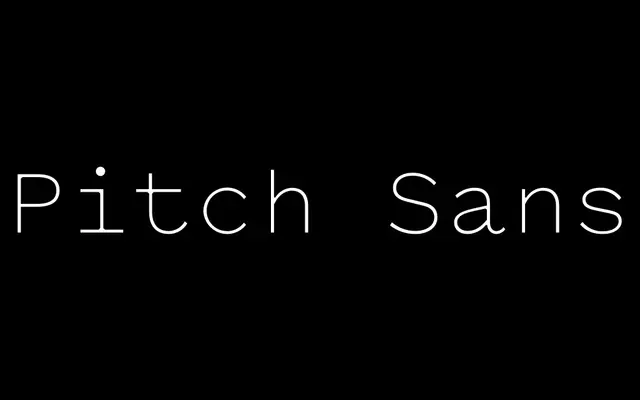
Pitch Sans
Klim Type Foundry · Kris Sowersby · 2018
A sans monospace that evokes typewritten text without imitating it, sibling to the slab-serif Pitch.
A monospaced sans by Kris Sowersby, the sans companion to Pitch, drawn as a love letter to the typewriter rather than a literal revival. Five weights run from Light to Bold with paired italics, all on the same fixed advance width, so it locks into code, captions and tabular settings cleanly. Sits comfortably in editorial and tech work that wants a typewriter atmosphere without the worn-ribbon pastiche.
Klim classifies it as Modern: Lineal/Sans Serif Monospace; a typewriter-inspired sans monospace, sibling to Pitch, described as a synthesis of digital and analogue that evokes typewritten text rather than emulating it.